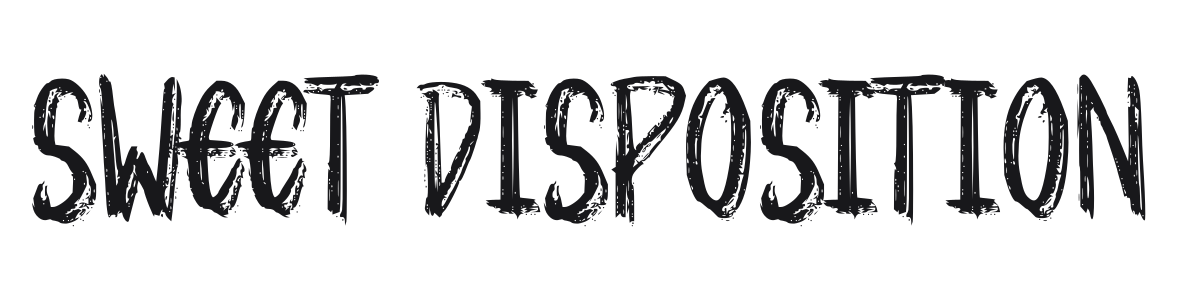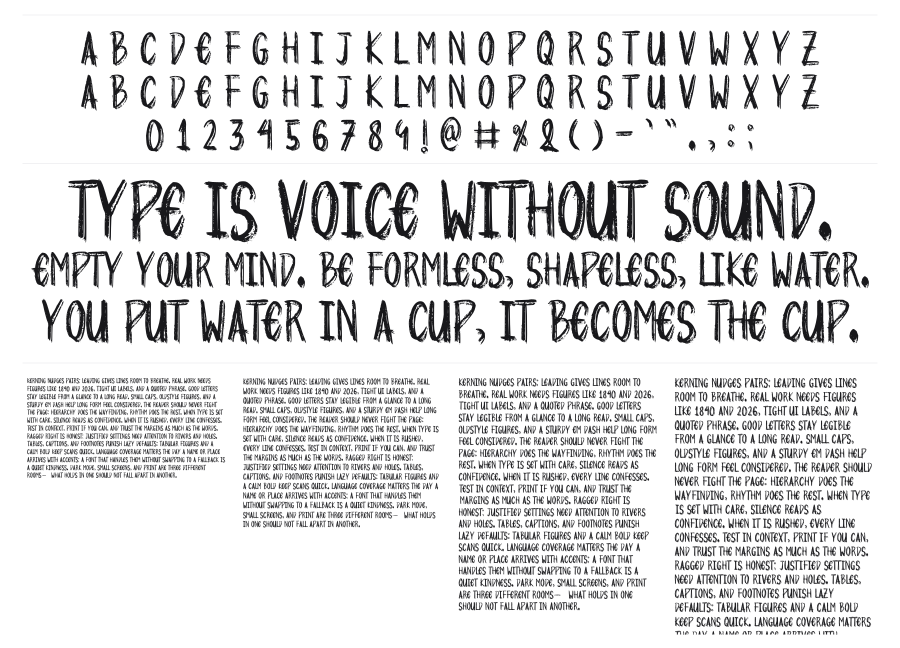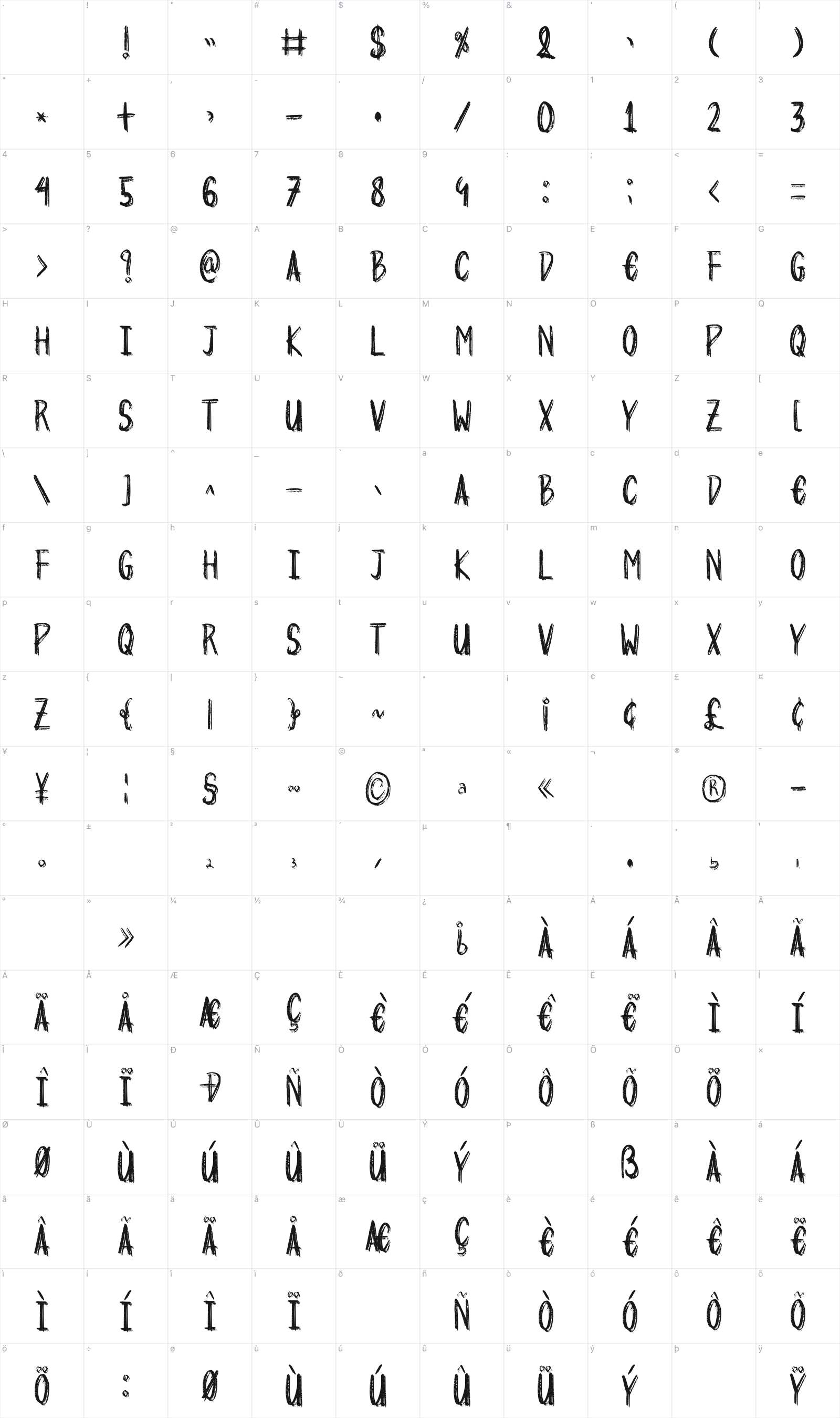
Sweet Disposition
Sweet Disposition is a bold, brush-painted display face with heavy distressing and raw ink-drag texture across every stroke. The characters follow a tall upright structure that reads clearly at large sizes while the rough edges keep things feeling handmade and alive. It fits naturally in music branding, artisan packaging, and anywhere a headline needs grit.